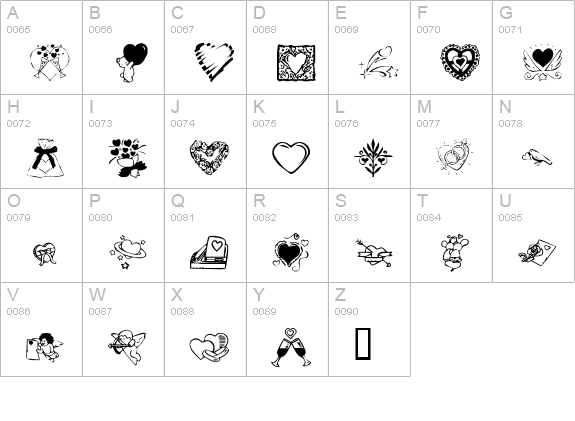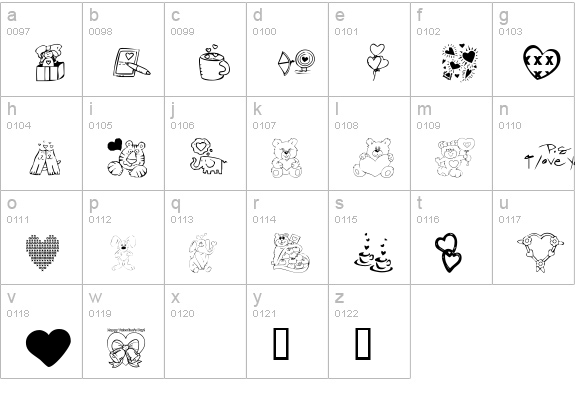
KR Valentine Dings 2002 Font Details
KR Valentine Dings 2002 is a charming and delightful font that is perfect for adding a touch of love and whimsy to your projects. This fun and festive font features a variety of heart-themed dingbats that can be used to enhance your designs for Valentine's Day, anniversaries, weddings, or any other romantic occasion. With its playful and romantic style, KR Valentine Dings 2002 is sure to bring a smile to your audience's face. The best part? KR Valentine Dings 2002 is available for free download at FontsMarket.com. This means you can easily access this lovely font and start incorporating its sweet and romantic elements into your designs without any cost. Whether you're creating greeting cards, invitations, social media graphics, or any other project that could use a touch of love, KR Valentine Dings 2002 is the perfect choice. Don't miss out on the opportunity to add a little love to your designs with KR Valentine Dings 2002. Download this charming font for free today and spread some joy and romance in your creations.